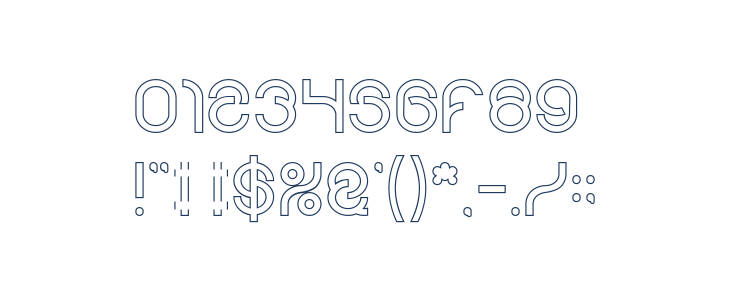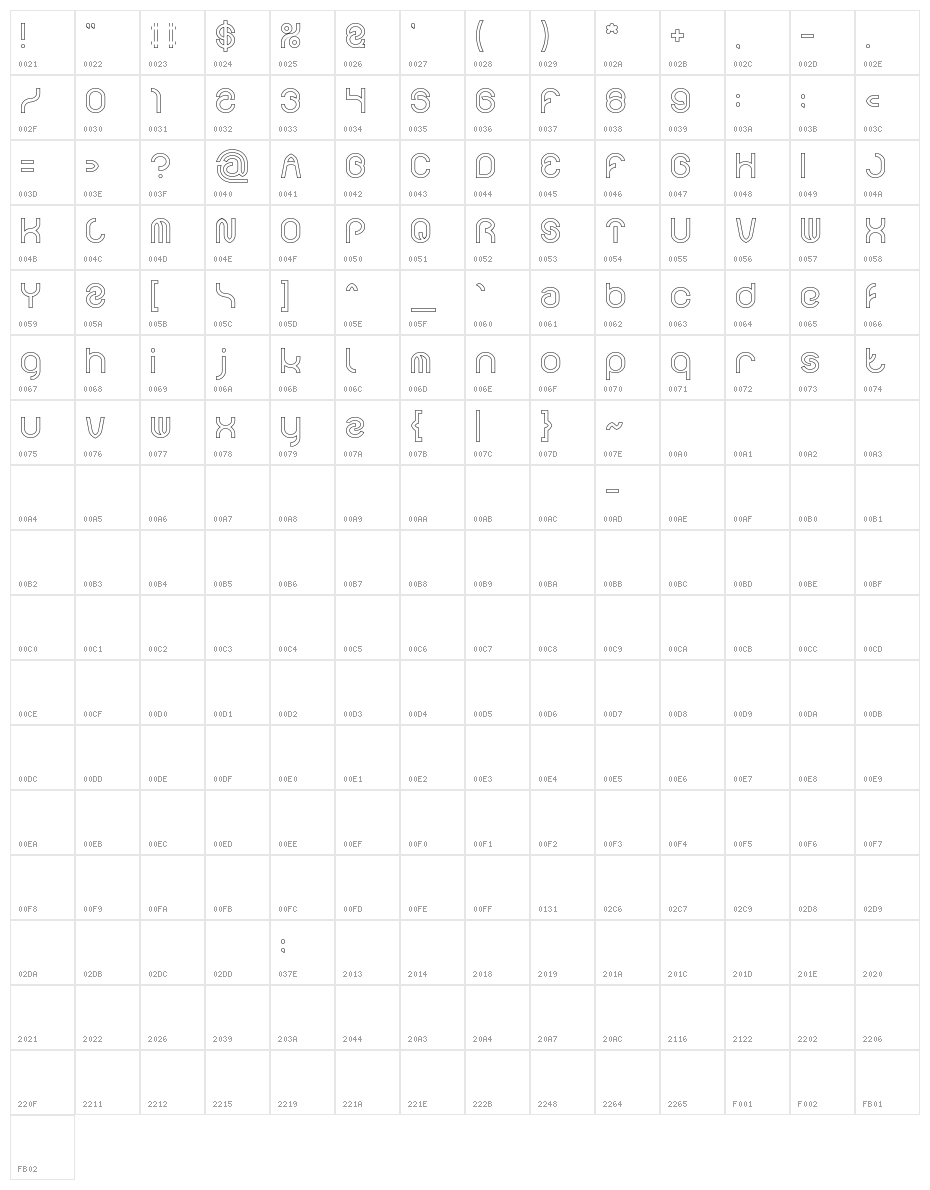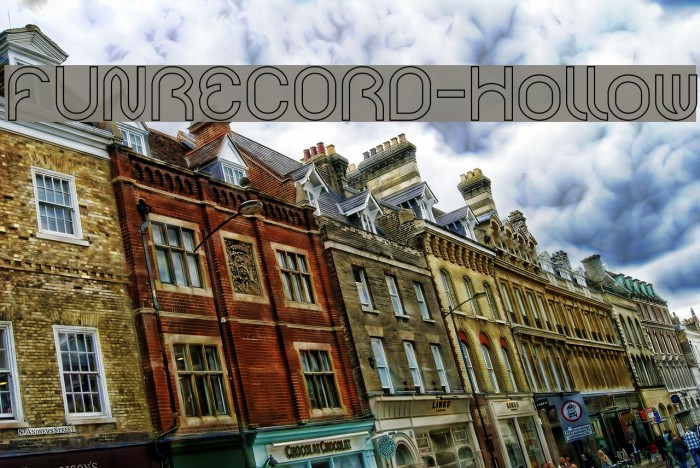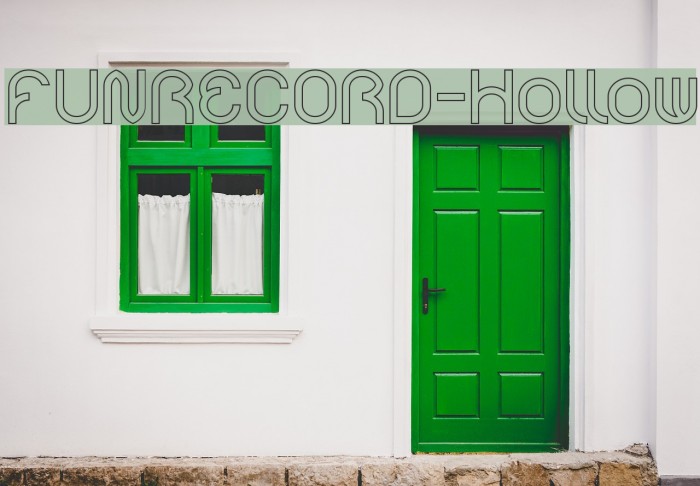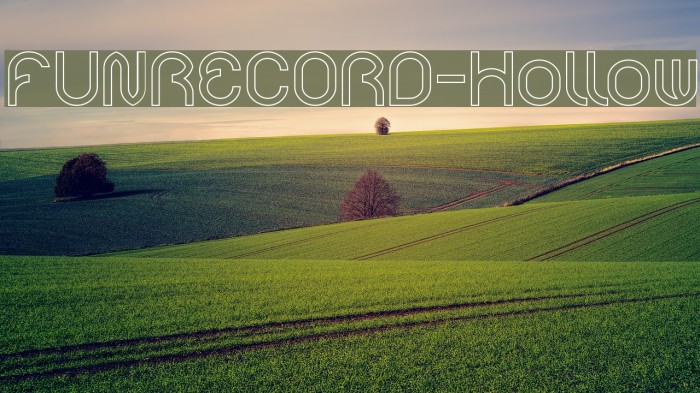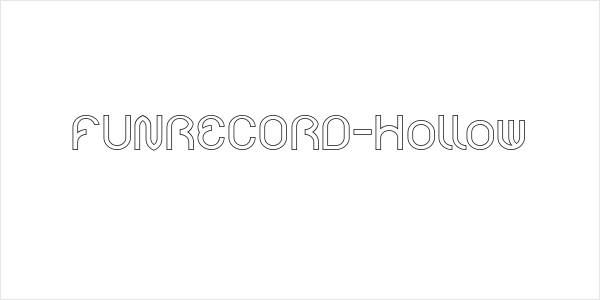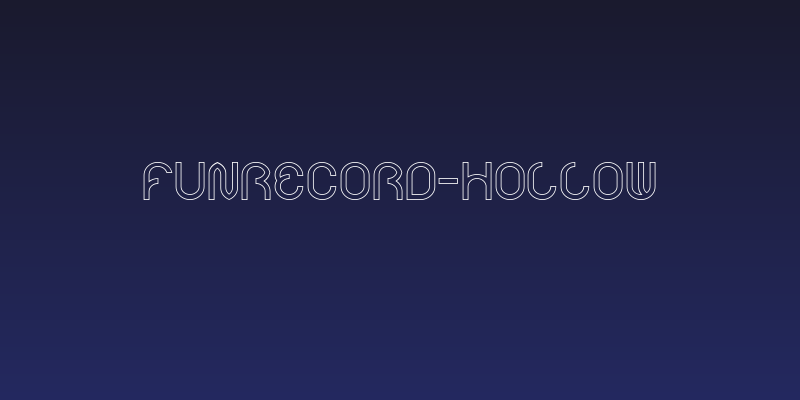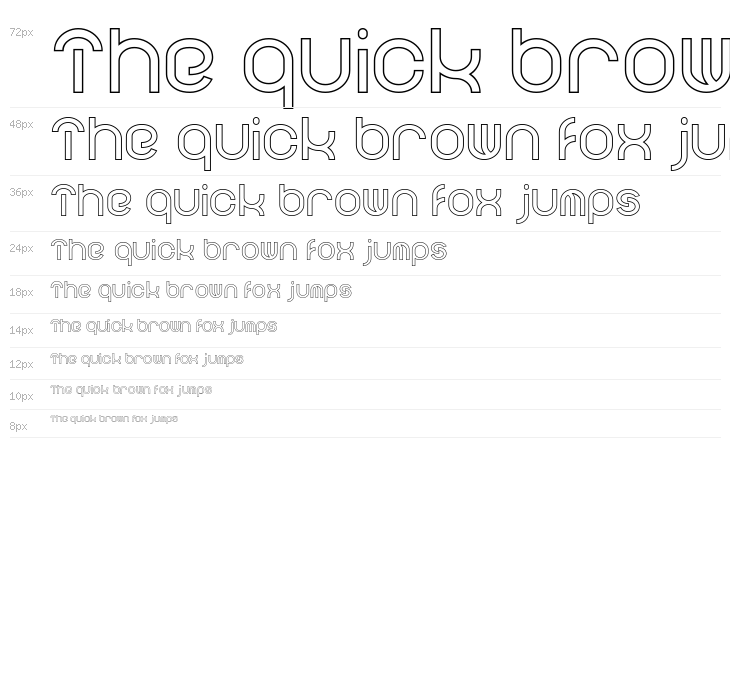
FUNRECORD-Hollow Font
FUNRECORD-Hollow Description
This font features a unique hollow design with clean, geometric lines that create a modern and futuristic appearance. The characters are composed of consistent, rounded strokes that form a cohesive and visually appealing set. The uppercase and lowercase letters maintain a uniform style, while the numerals and special characters complement the overall aesthetic. This font's hollow nature gives it a distinctive look, making it stand out in various design contexts.
FUNRECORD-HOLLOW UPPERCASE
FUNRECORD-HOLLOW LOWERCASE
FUNRECORD-HOLLOW OTHER CHARS
| Use Case | Logos, Posters, Digital Media |
| Proposed Projects | Ideal for branding, logos, posters, and digital media where a modern and eye-catching design is desired. |